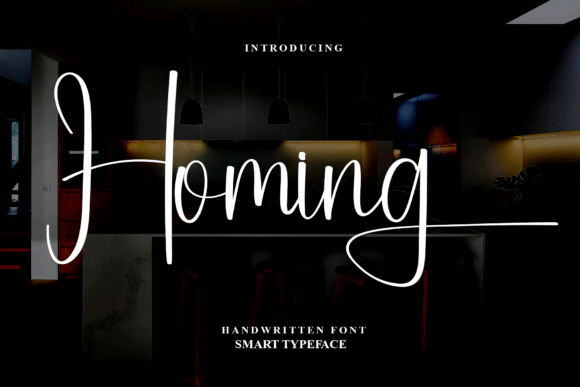
Journey into the world of Homing Font, a script font that captivates with its enchanting handwritten charm. Its versatility shines, effortlessly adapting from warm greeting cards to bold headlines, adding a romantic touch to every project. Crafted with precision by FreshTypeINK, Homing Font is the perfect choice for those seeking to make a statement with their words.
Teachers, embrace Homing Font as your ally in creating resumes that radiate professionalism and warmth. Its elegant script effortlessly conveys your passion for education, leaving a lasting impression on potential employers. Let your resume stand out from the crowd with Homing Font's charming touch.
Homing Font invites creativity to flourish. Its flowing lines and graceful curves lend themselves to a myriad of applications. From wedding invitations that evoke romance to social media posts that exude personality, Homing Font is the perfect companion for those who seek to express themselves with flair.
With Homing Font, your designs will blossom into works of art. Its ability to effortlessly blend with various styles, from classic to contemporary, makes it a versatile choice for designers seeking to captivate their audience. Whether you're designing a captivating logo or crafting an eye-catching poster, Homing Font will elevate your vision.
Embrace the allure of Homing Font, a versatile and enchanting script font that adds a touch of magic to your creative endeavors. Its wide range of applications, from heartfelt letters to captivating marketing materials, makes it an indispensable tool for those who seek to make a lasting impression. Let Homing Font be your font of choice and watch your words dance with elegance and charm.